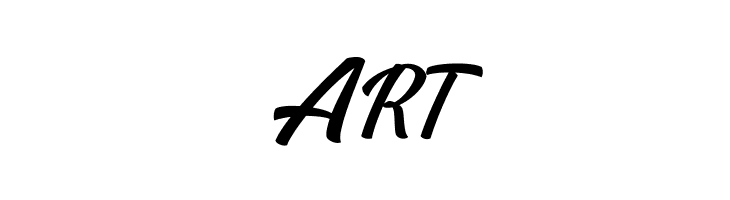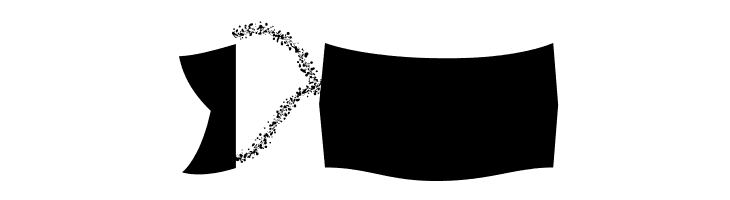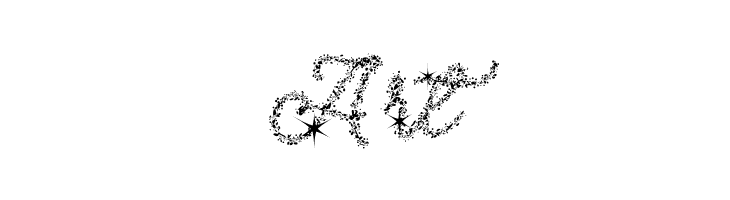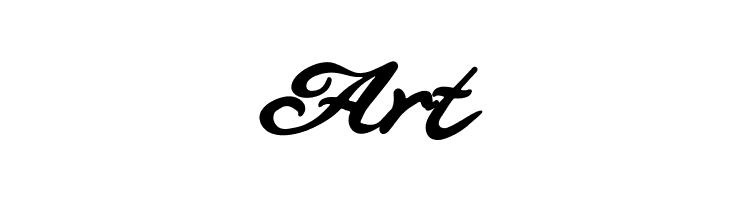
A dynamic script font with elegant, flowing letterforms and a sophisticated style.
A bold, flowing script font with modern elegance.
A delicate, flowing script font with elegant, cursive letterforms.
A dynamic and flowing script font with elegant cursive letterforms.
A bold, expressive script font with dynamic curves and decorative swashes.
Festive, decorative banners and ribbons with varied edges and embellishments.
A festive, star-studded script font perfect for holiday-themed projects.
A flowing, cursive font with elegant, sweeping strokes and a handwritten appearance.
An elegant, flowing script font with high contrast and graceful swashes.
A modern sans-serif font with clean lines and uniform stroke widths.